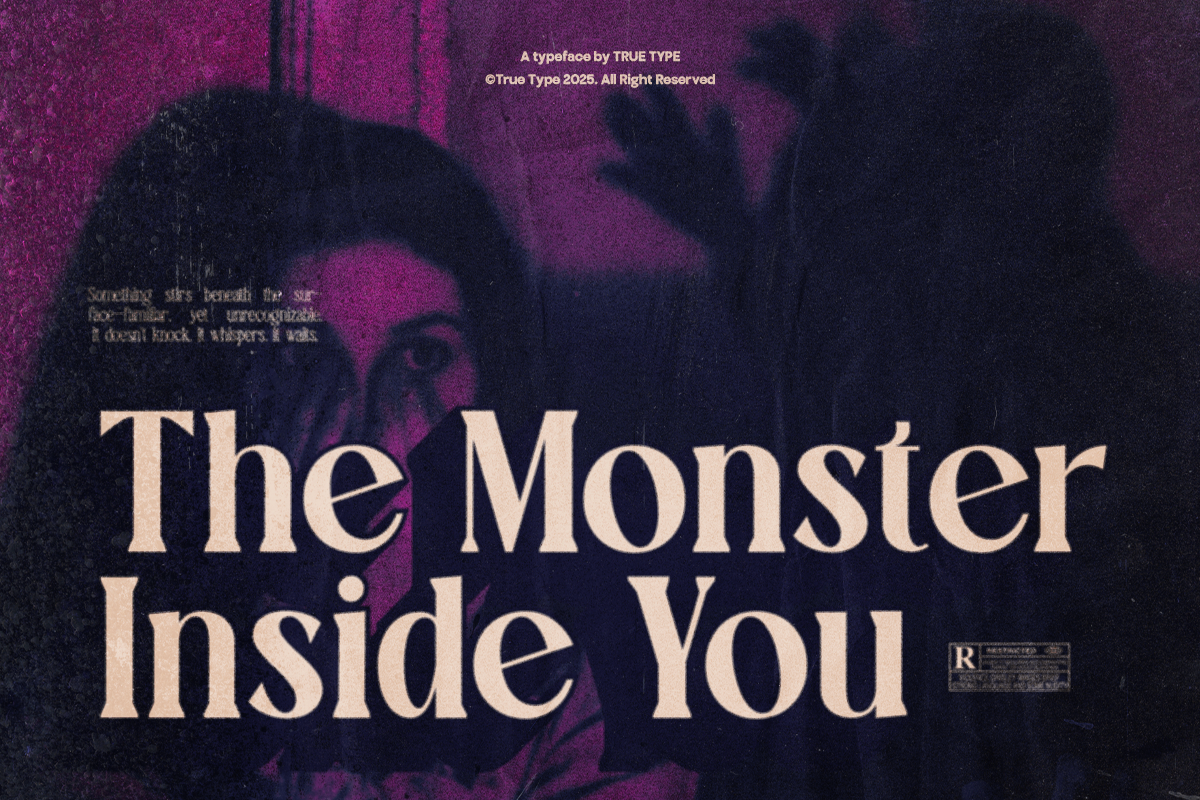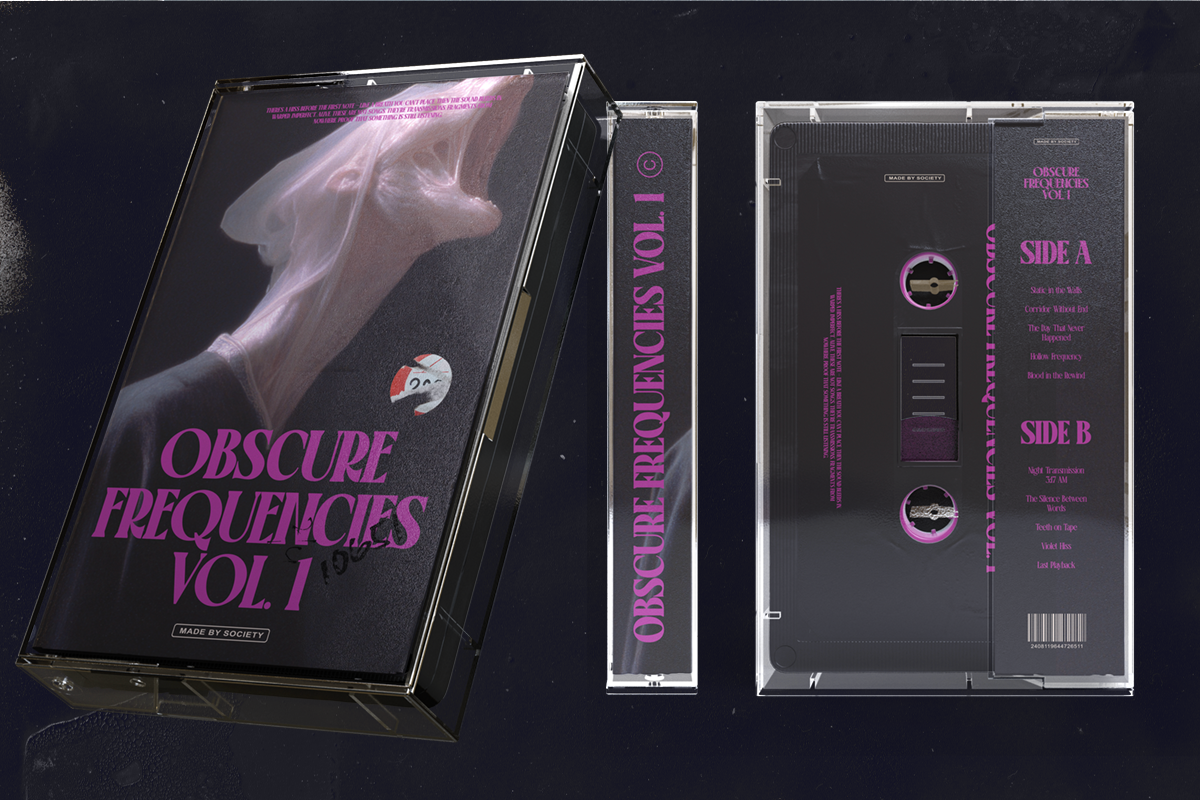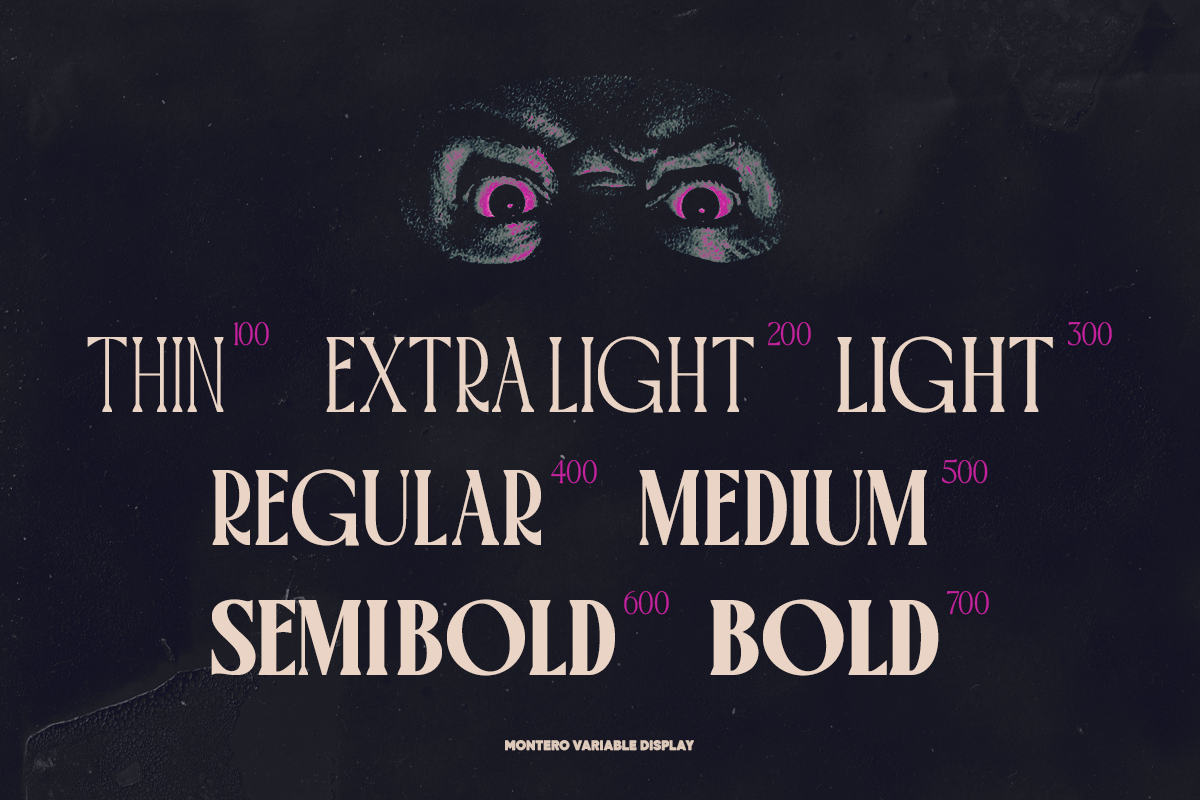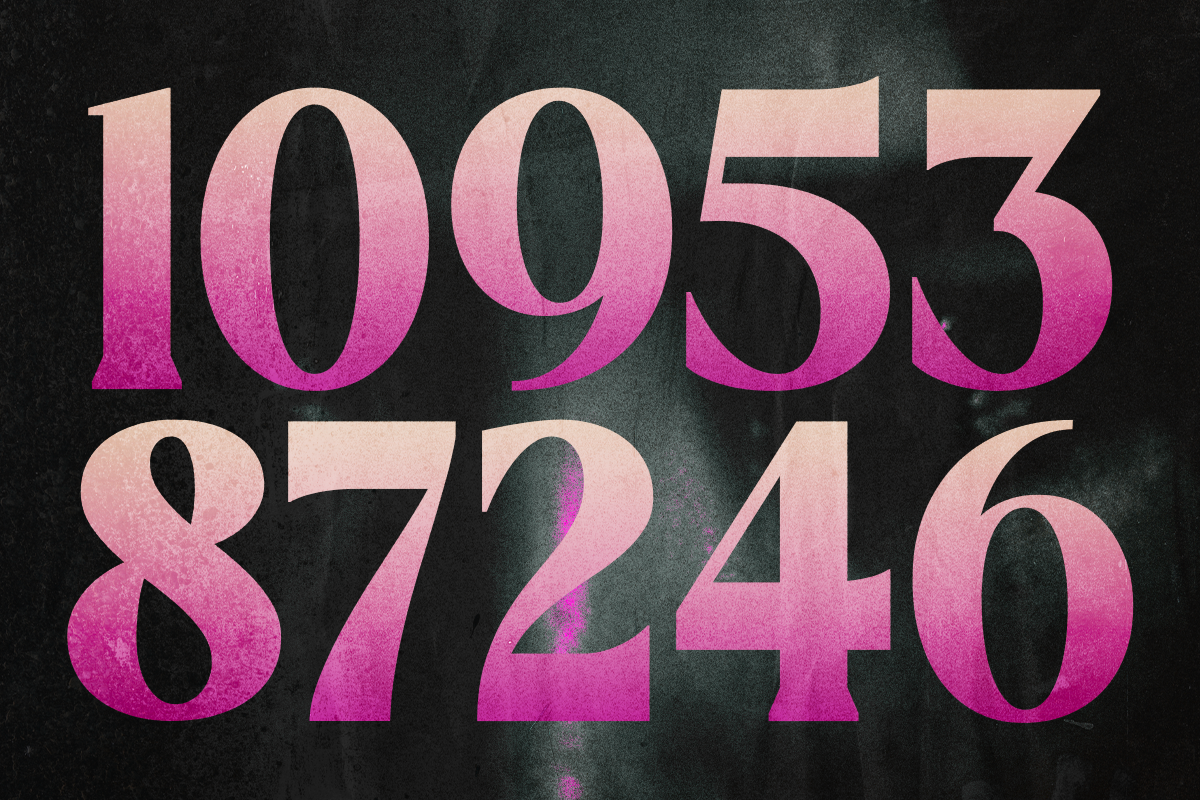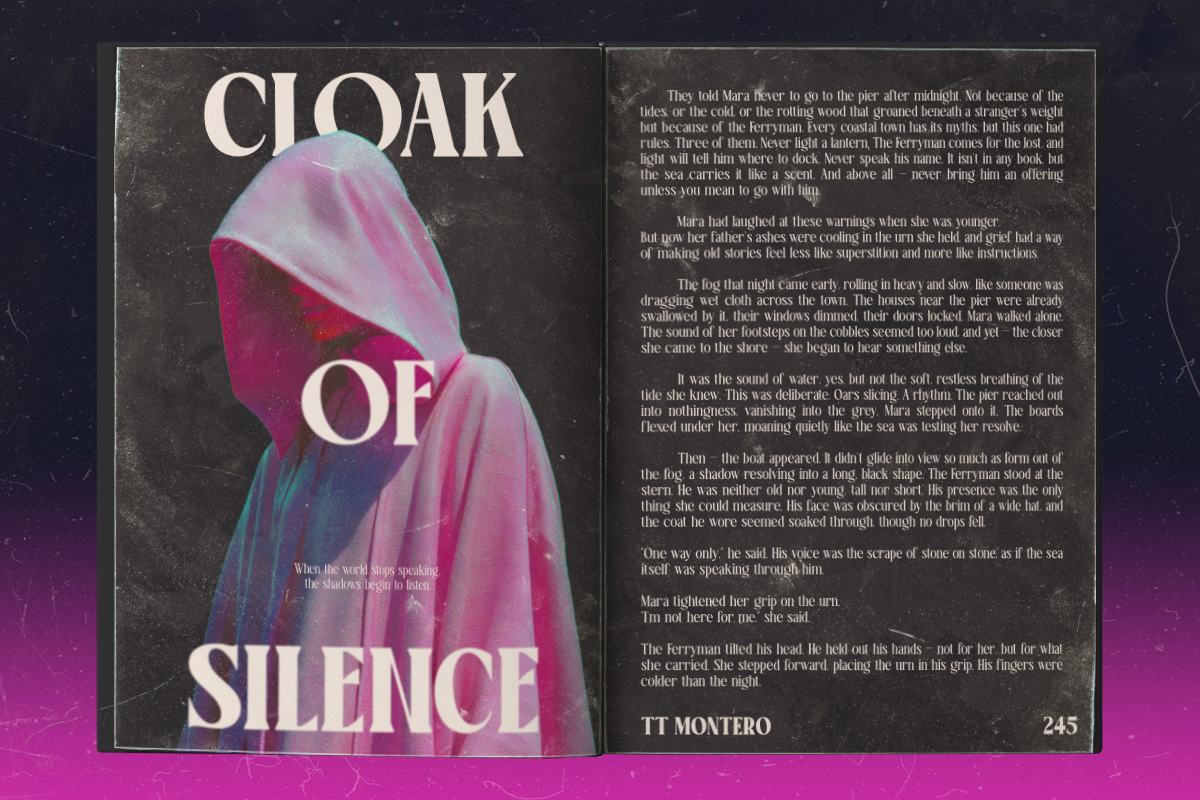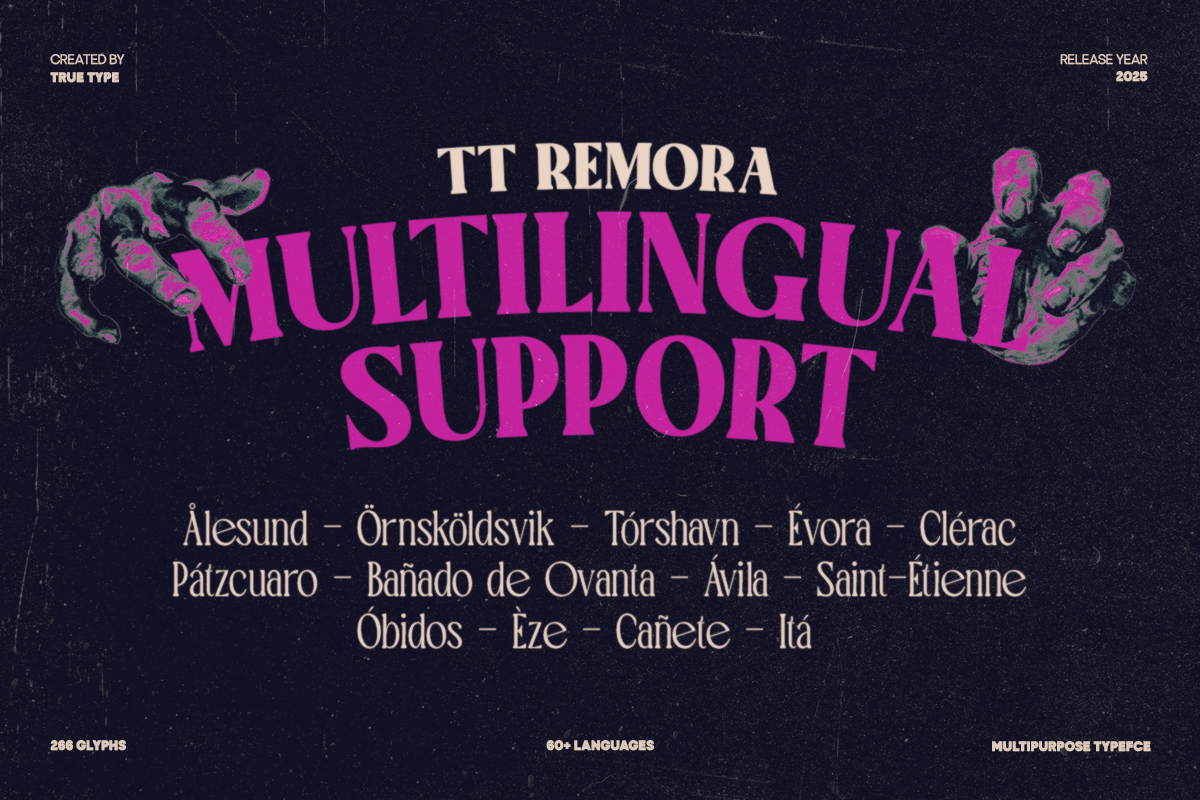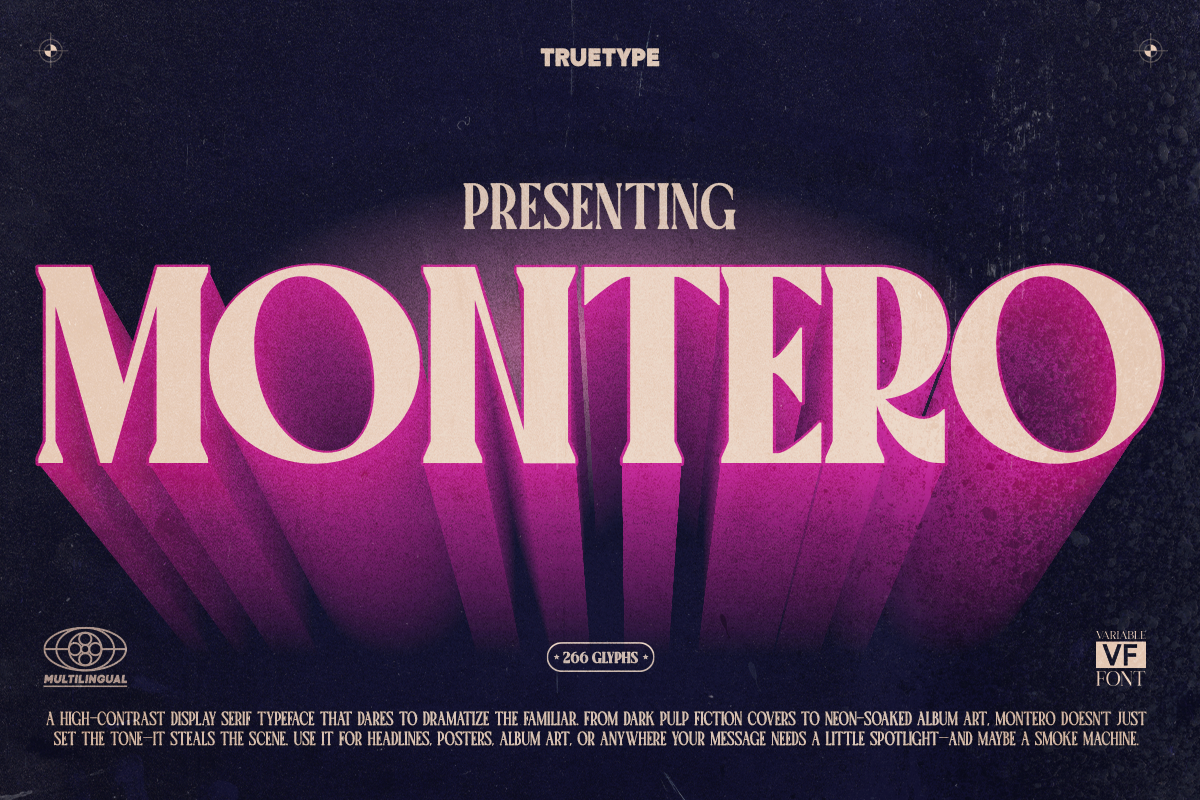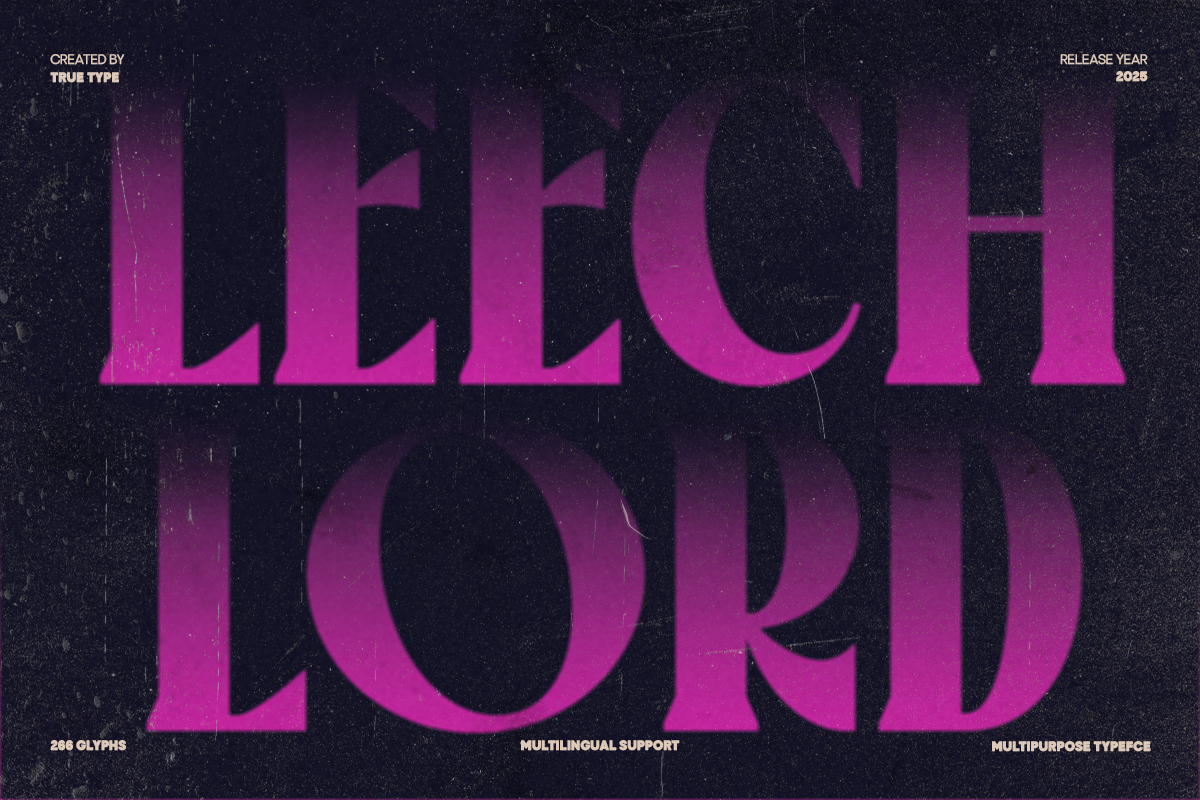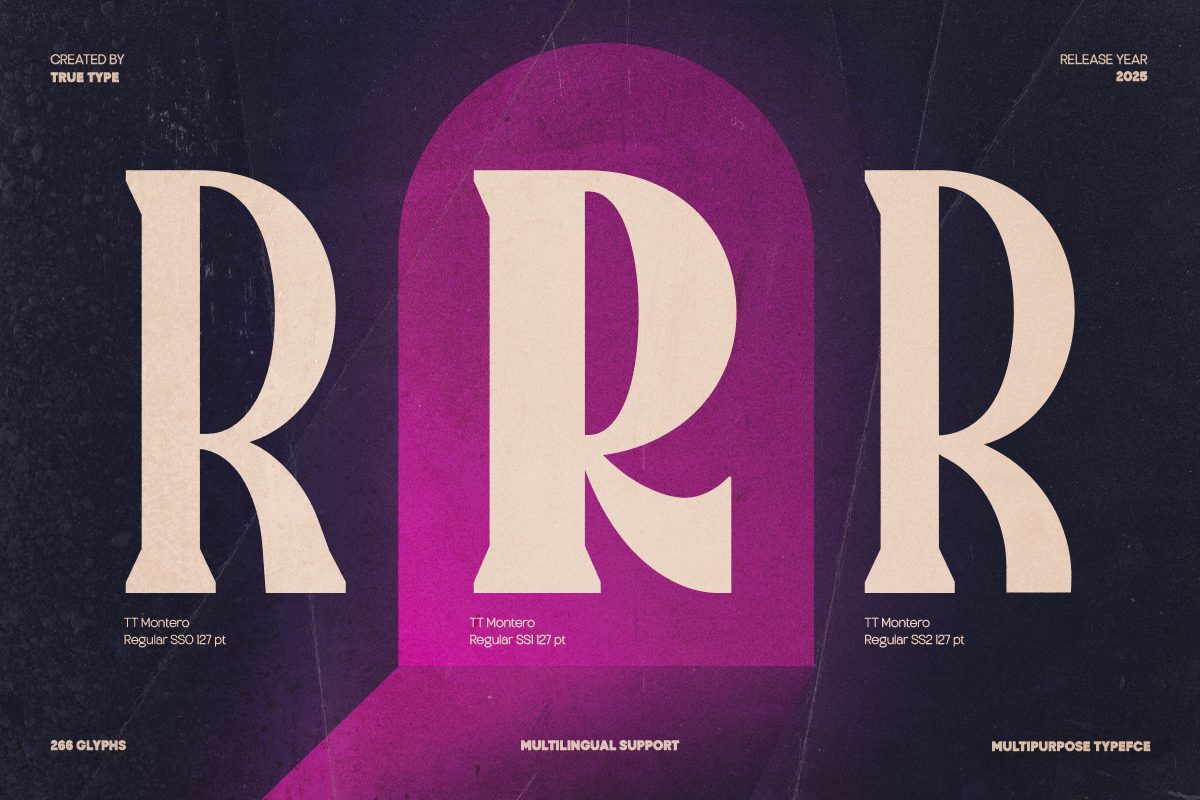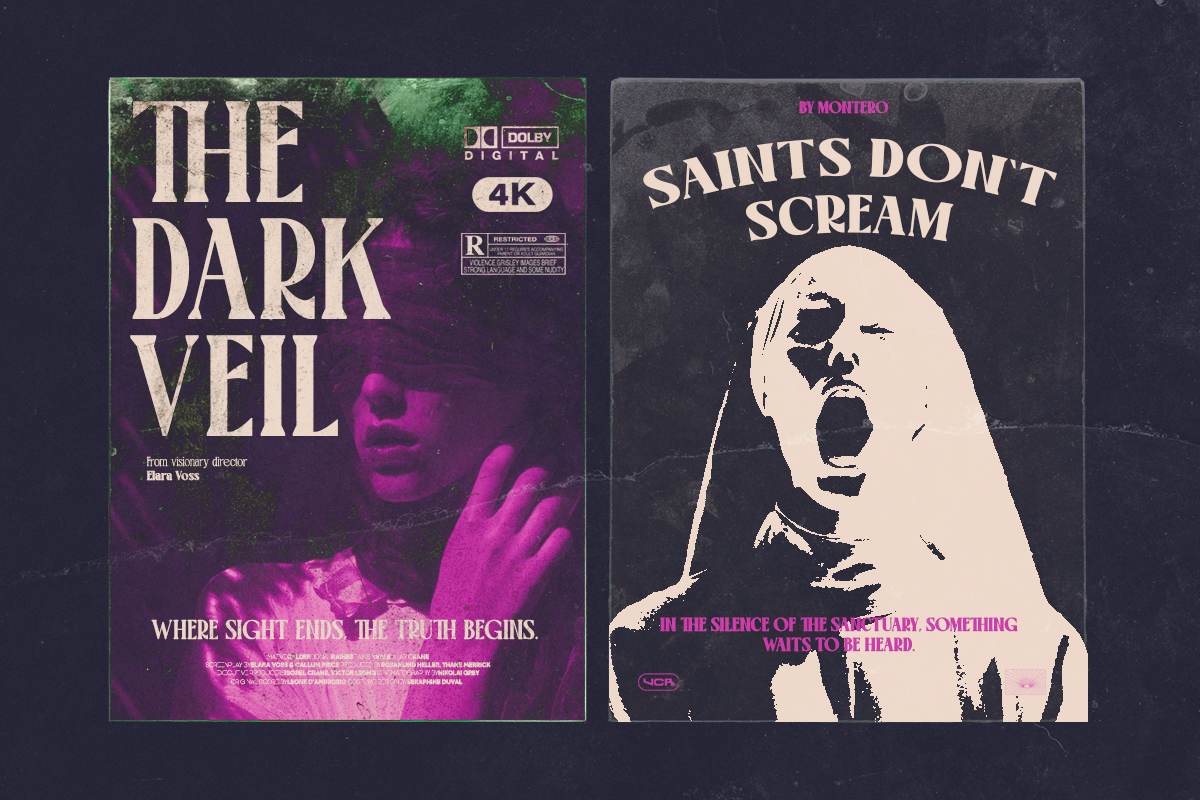
TT Montero created by Truetype is a condensed serif typeface that combines timeless elegance with a sleek, modern structure. Its narrow proportions and graceful serif details make it ideal for designers seeking both space efficiency and refined sophistication. Designed with a focus on balance and clarity, TT Montero supports small caps and OpenType features, offering flexibility across a wide range of editorial and branding projects. With its tall letterforms, sharp serifs, and elegant contrast, TT Montero is perfect for use in headlines, fashion campaigns, packaging, and typographic quotes. Its condensed shape allows more content to fit in limited space without compromising readability — making it especially useful for magazine layouts, logo lockups, and digital platforms. TT Montero’s personality lies in its ability to feel both classic and contemporary. It brings structure to your compositions while exuding a poised, stylish charm. Whether you're crafting wedding invitations, nostalgic branding, or product packaging, TT Montero elevates every letter with character and finesse. At True Type, we design typefaces that tell stories — fonts that marry functionality with flair, crafted to help you communicate with confidence and timeless appeal. Have questions? We’re here to help. Discover more in our font library and find the type that speaks your language.